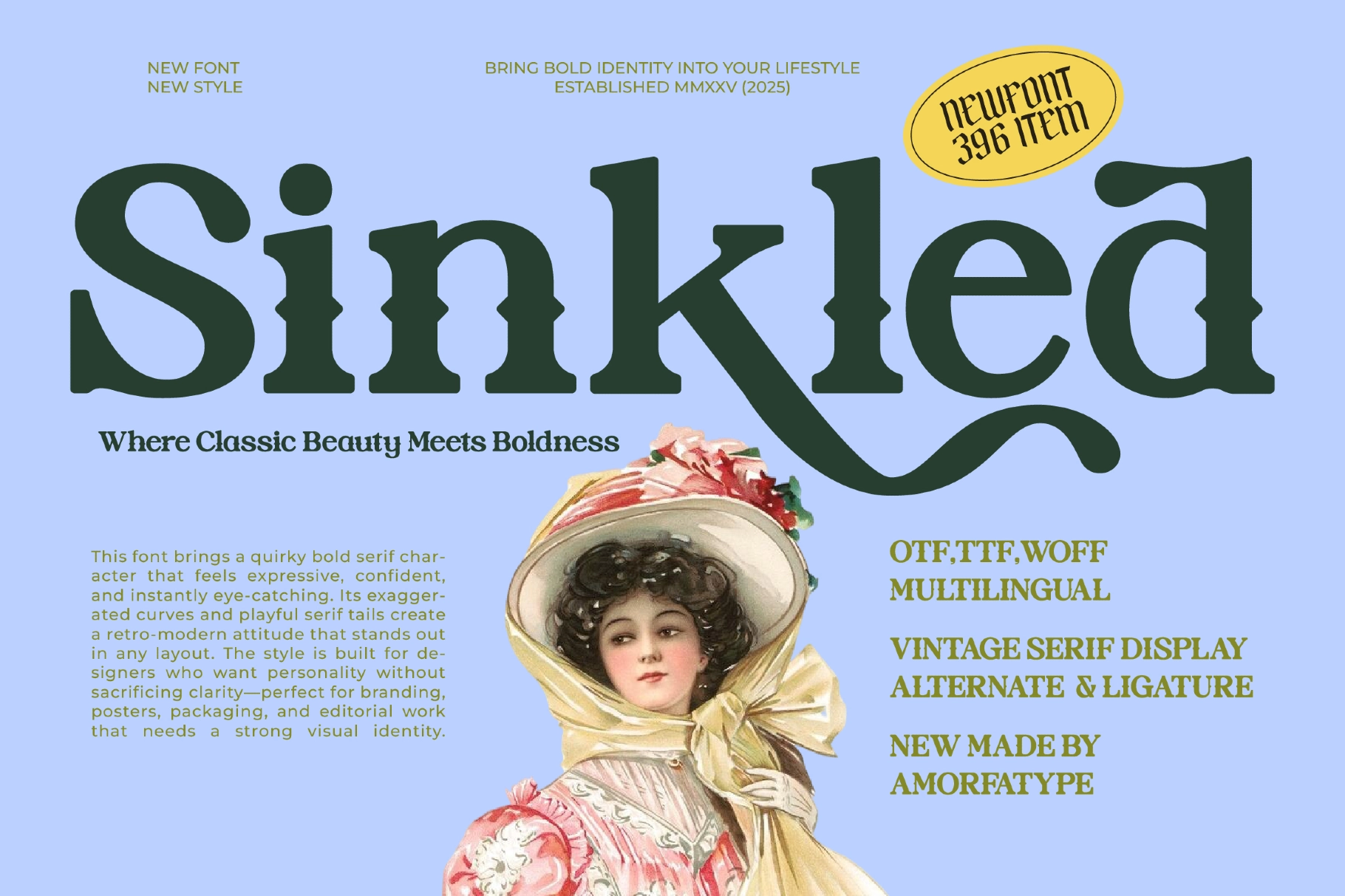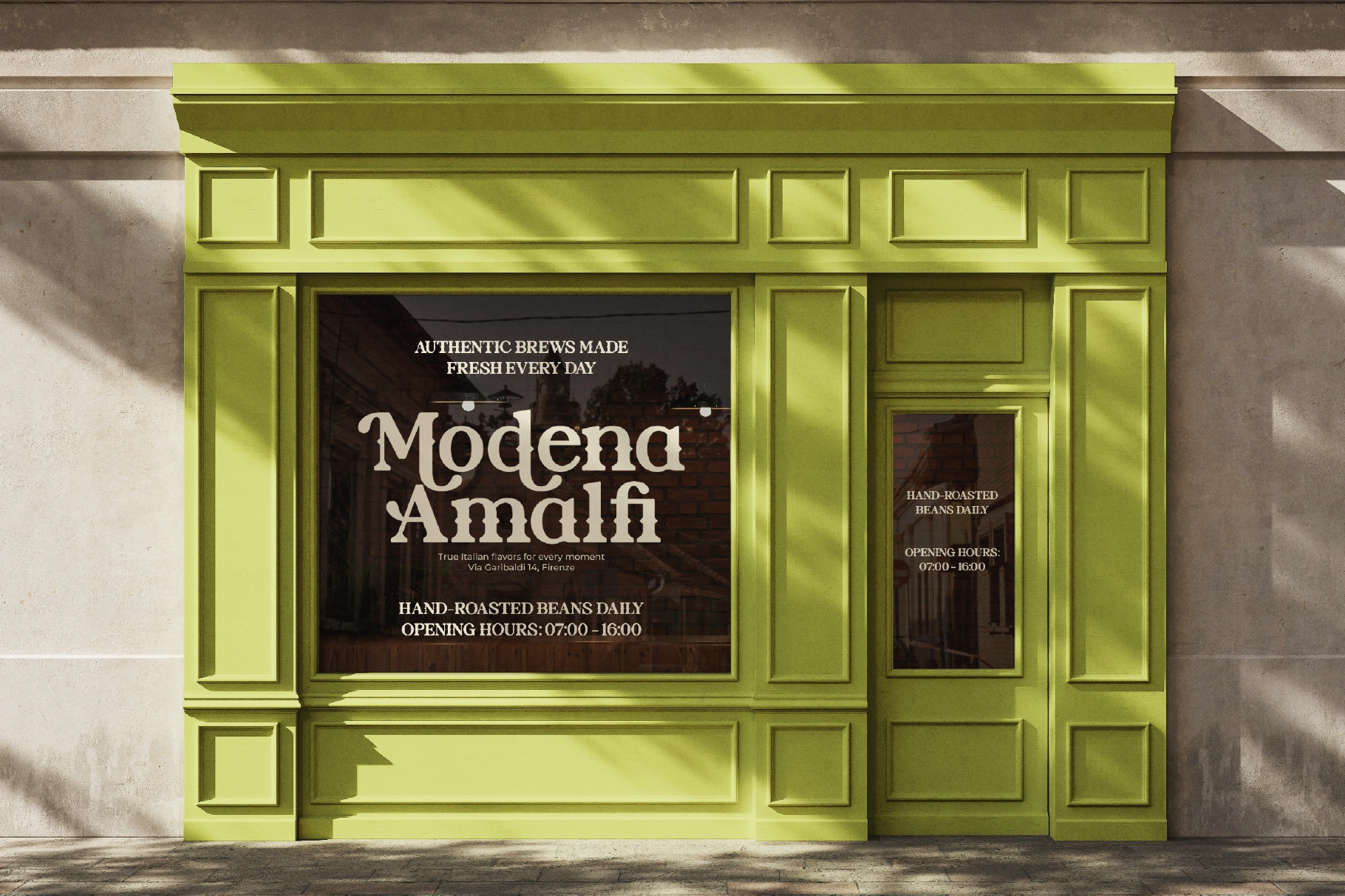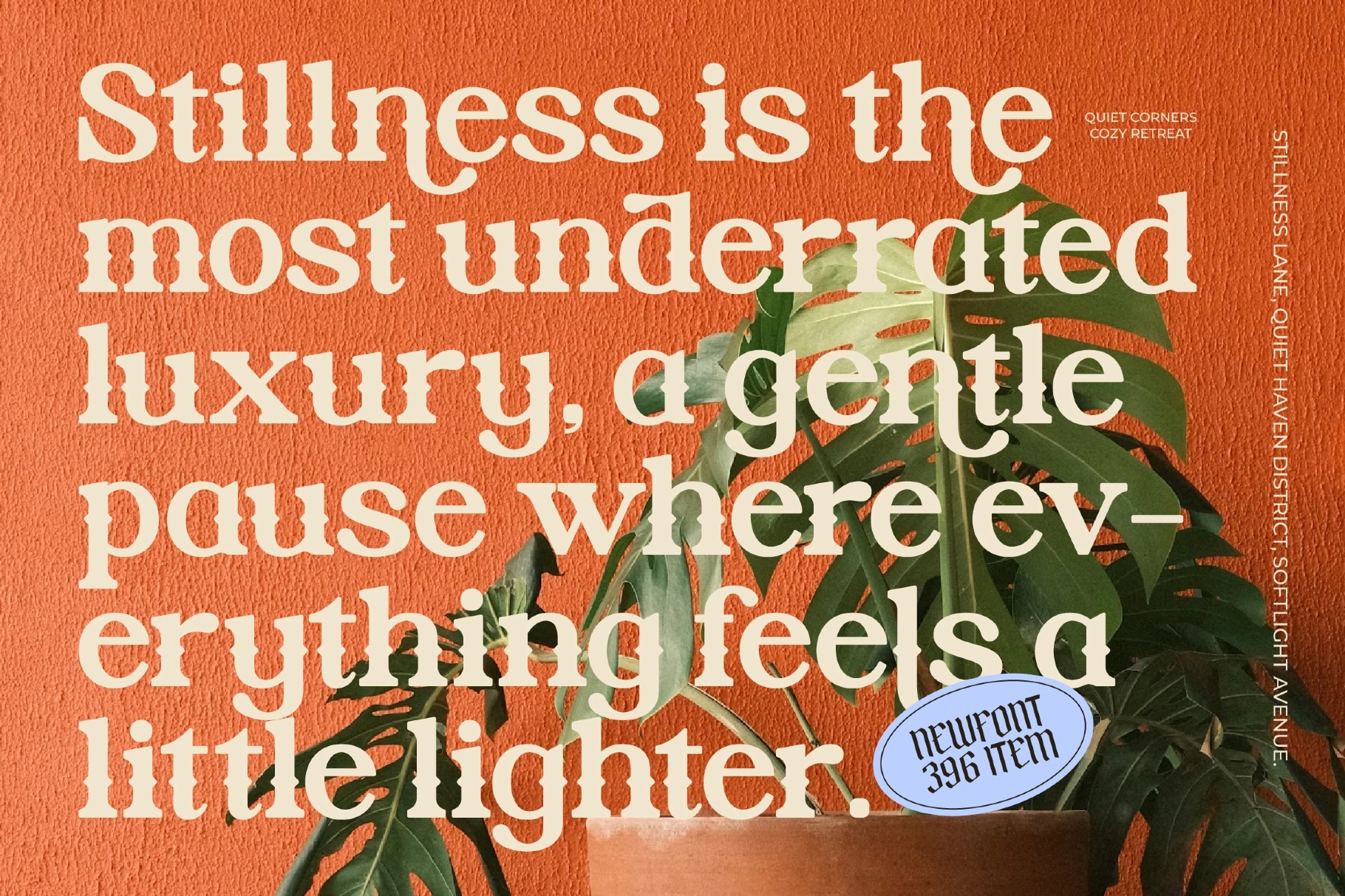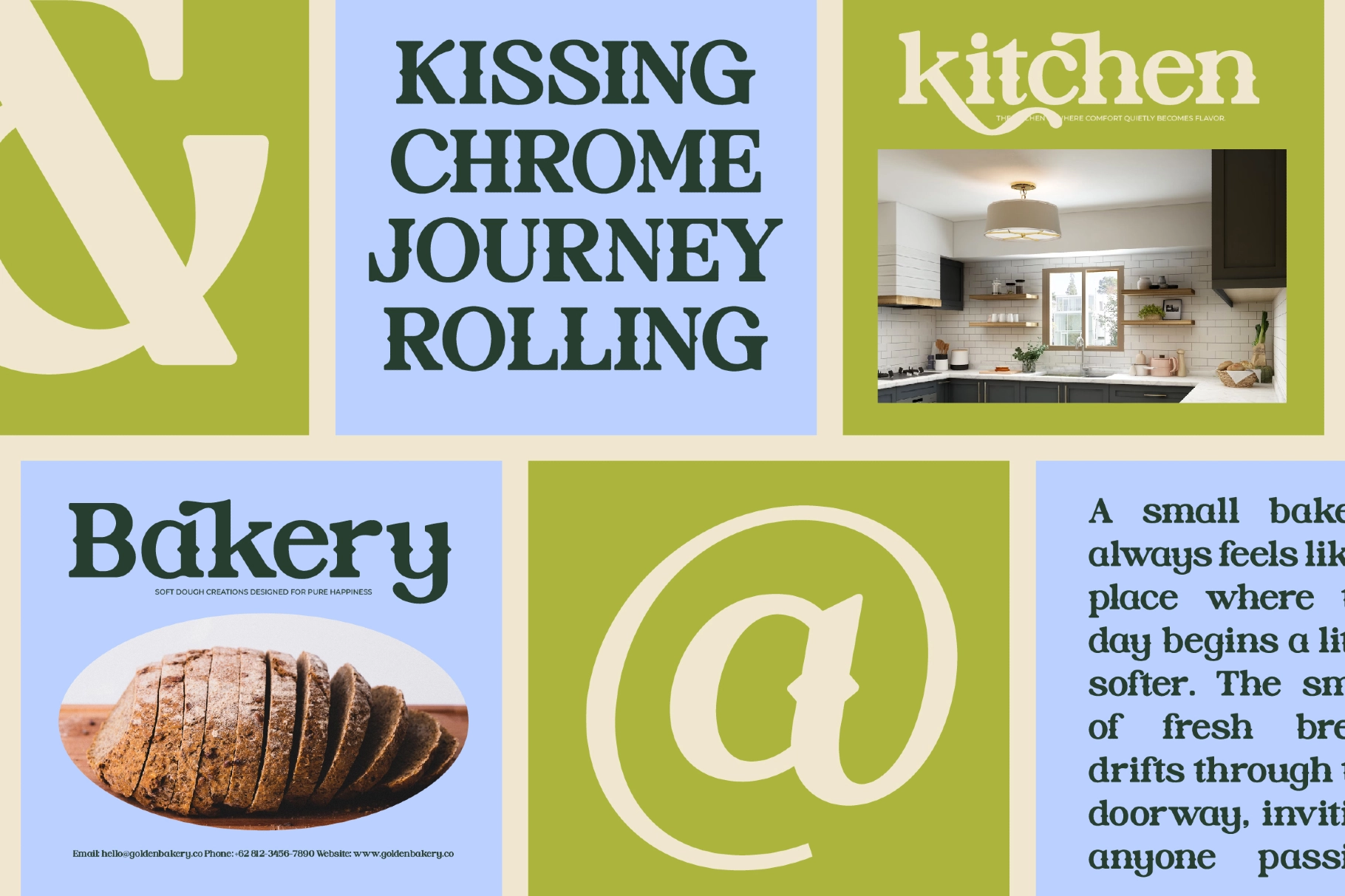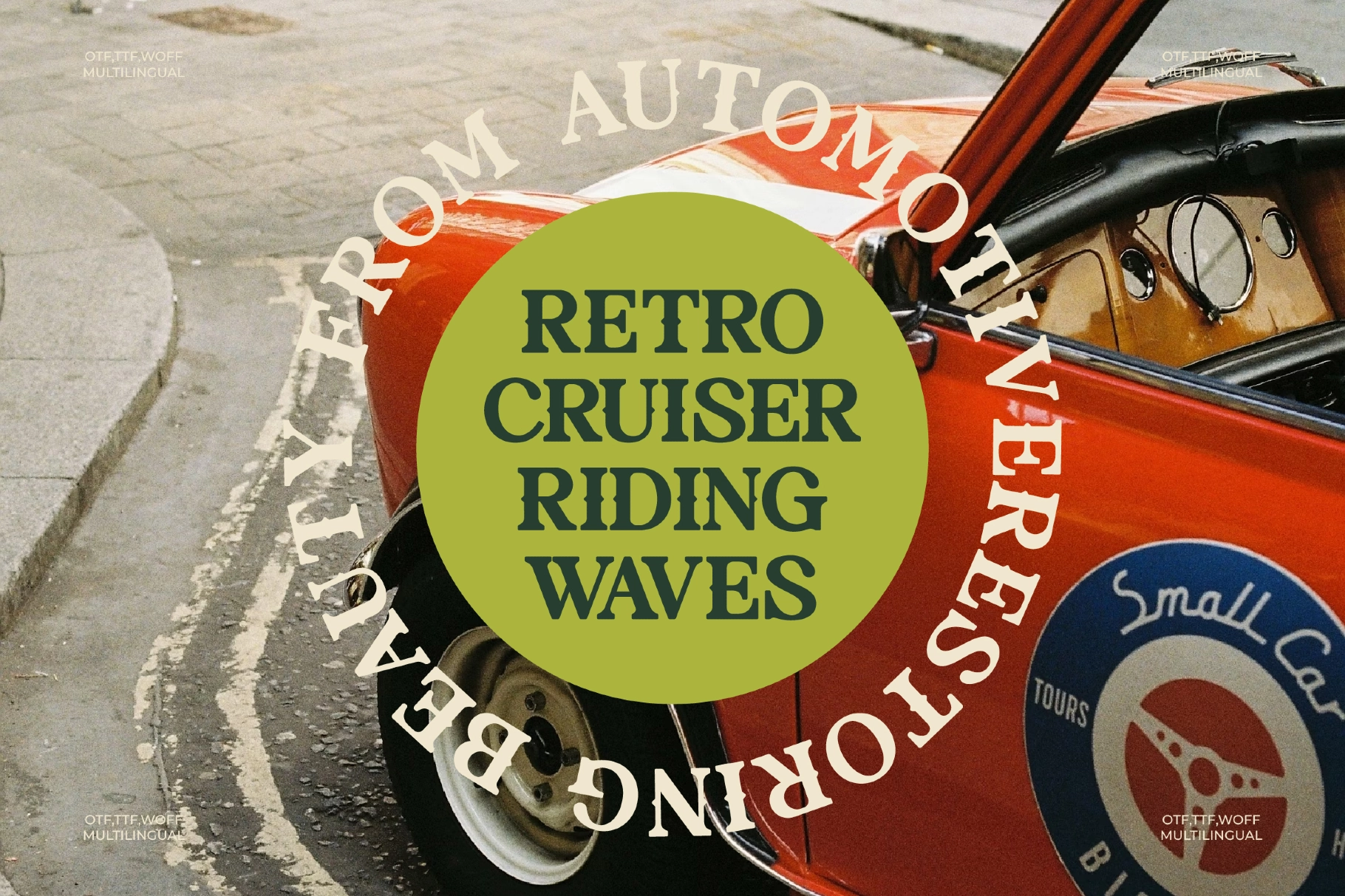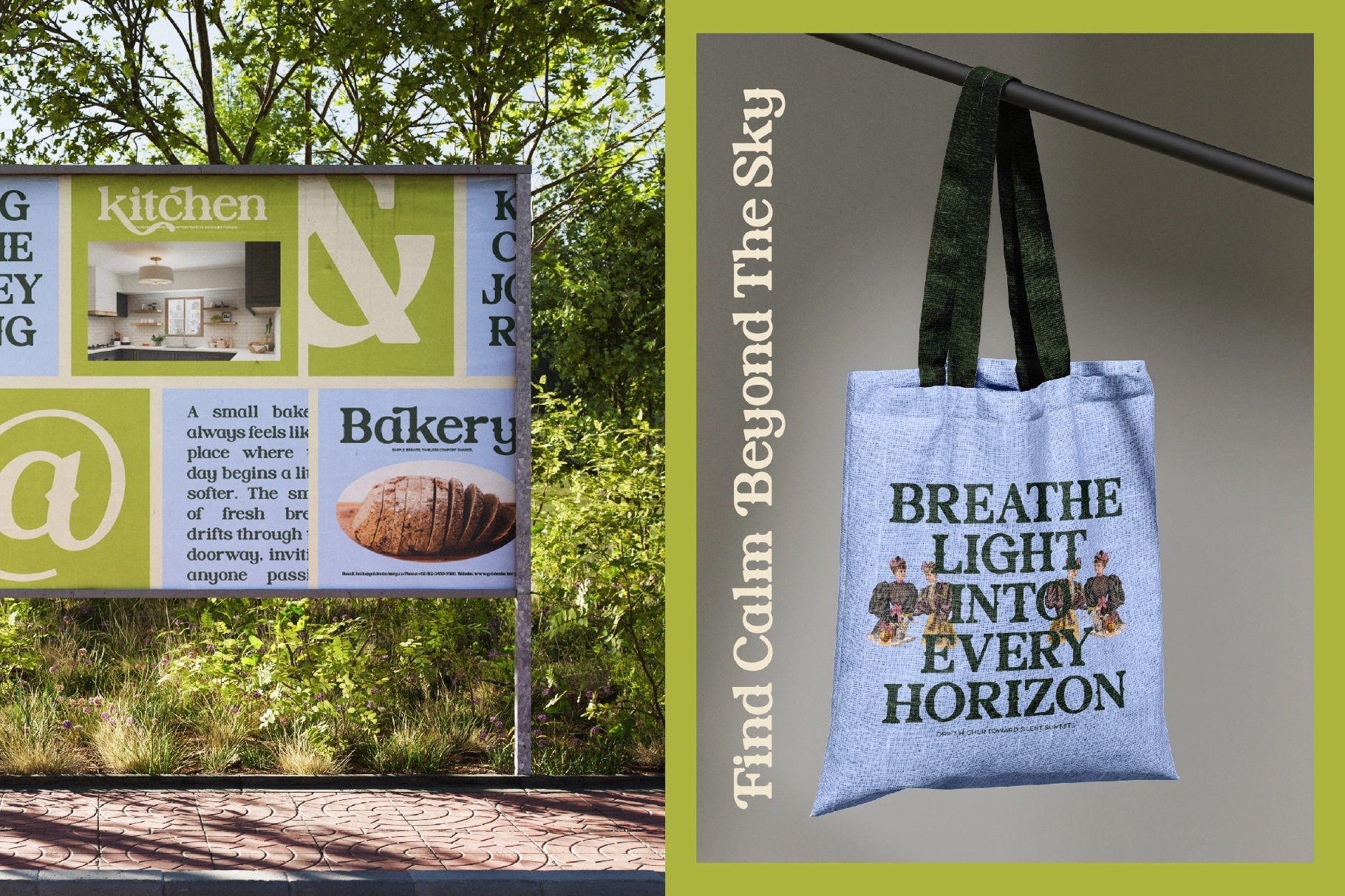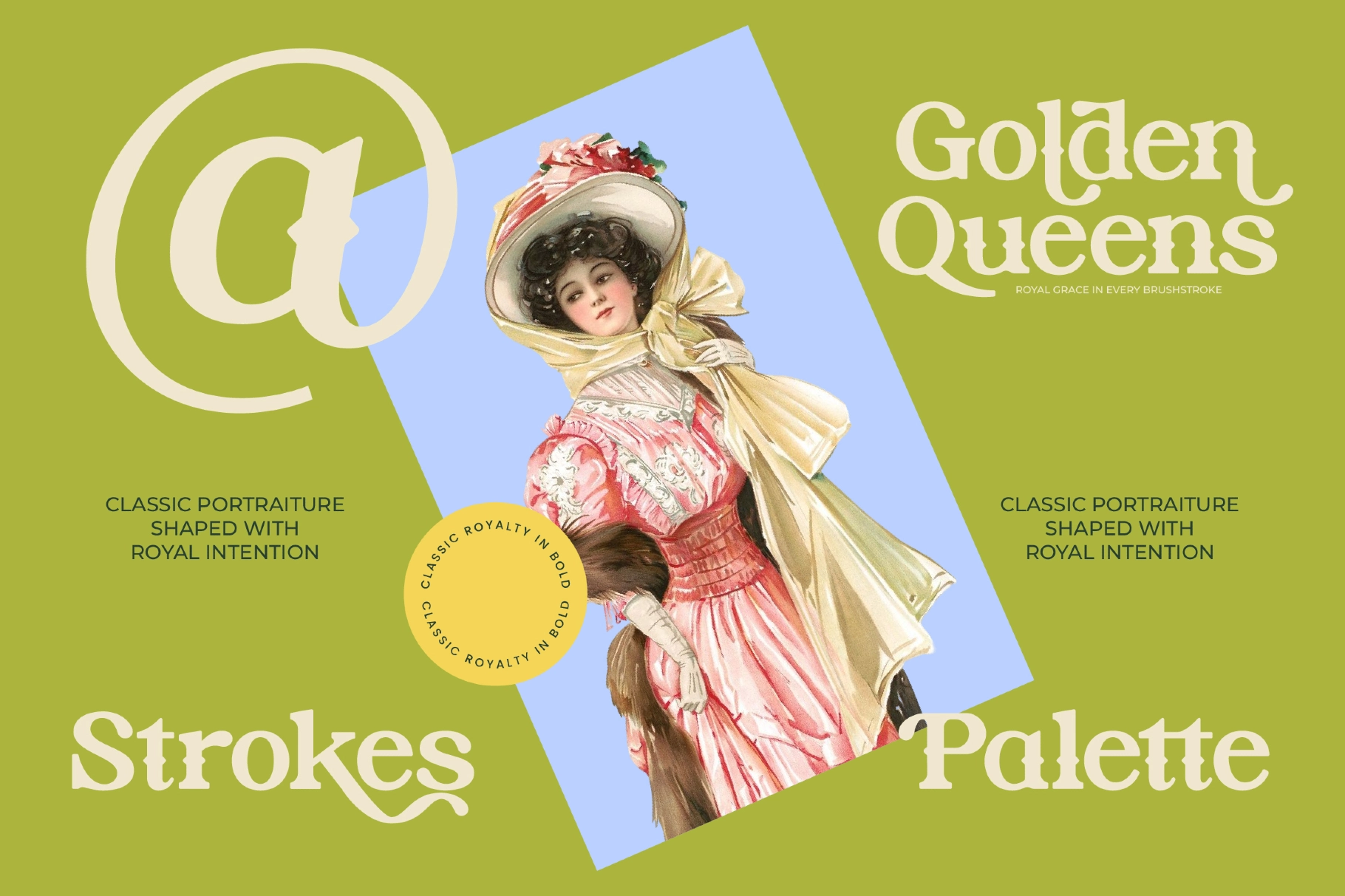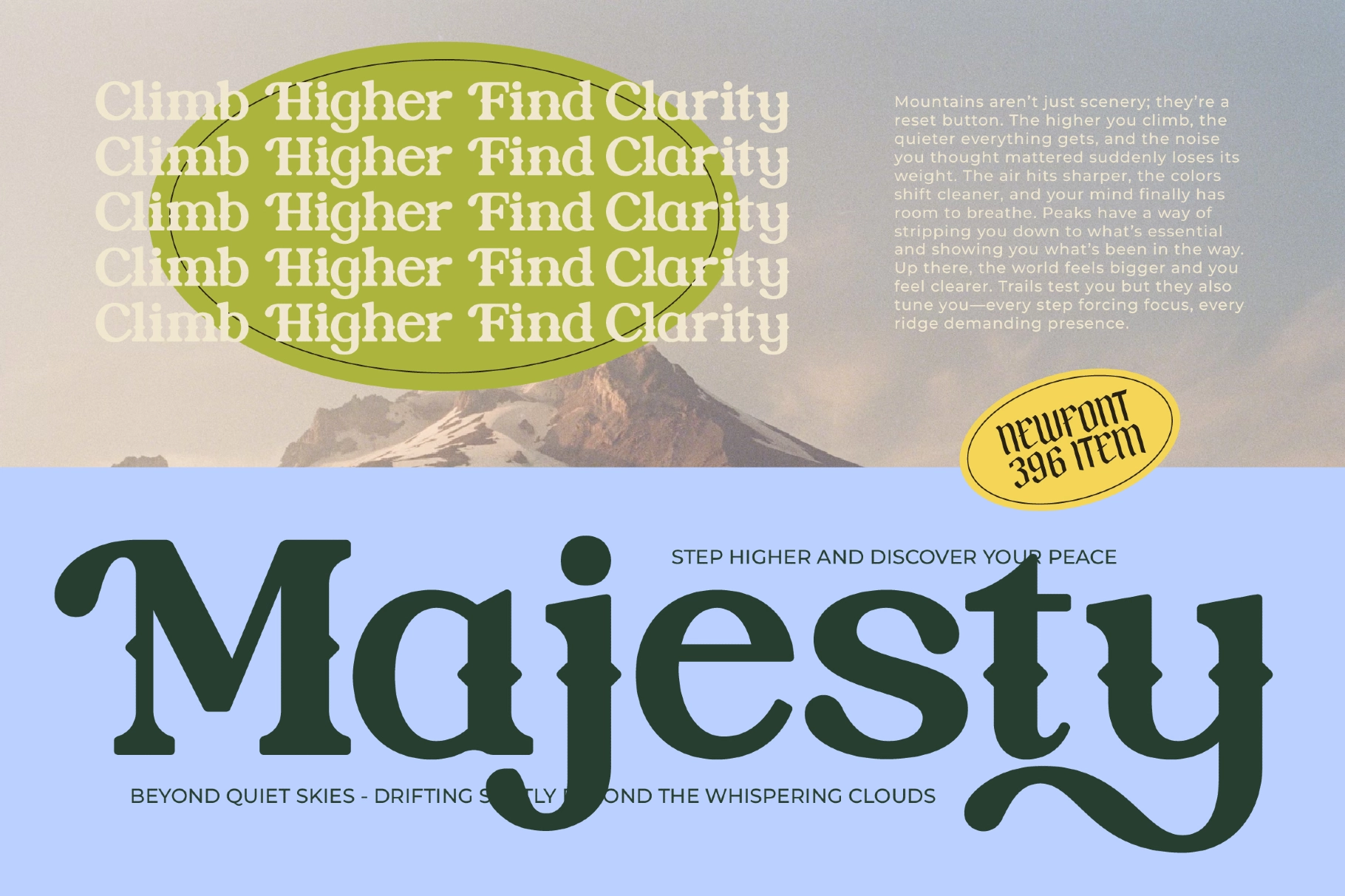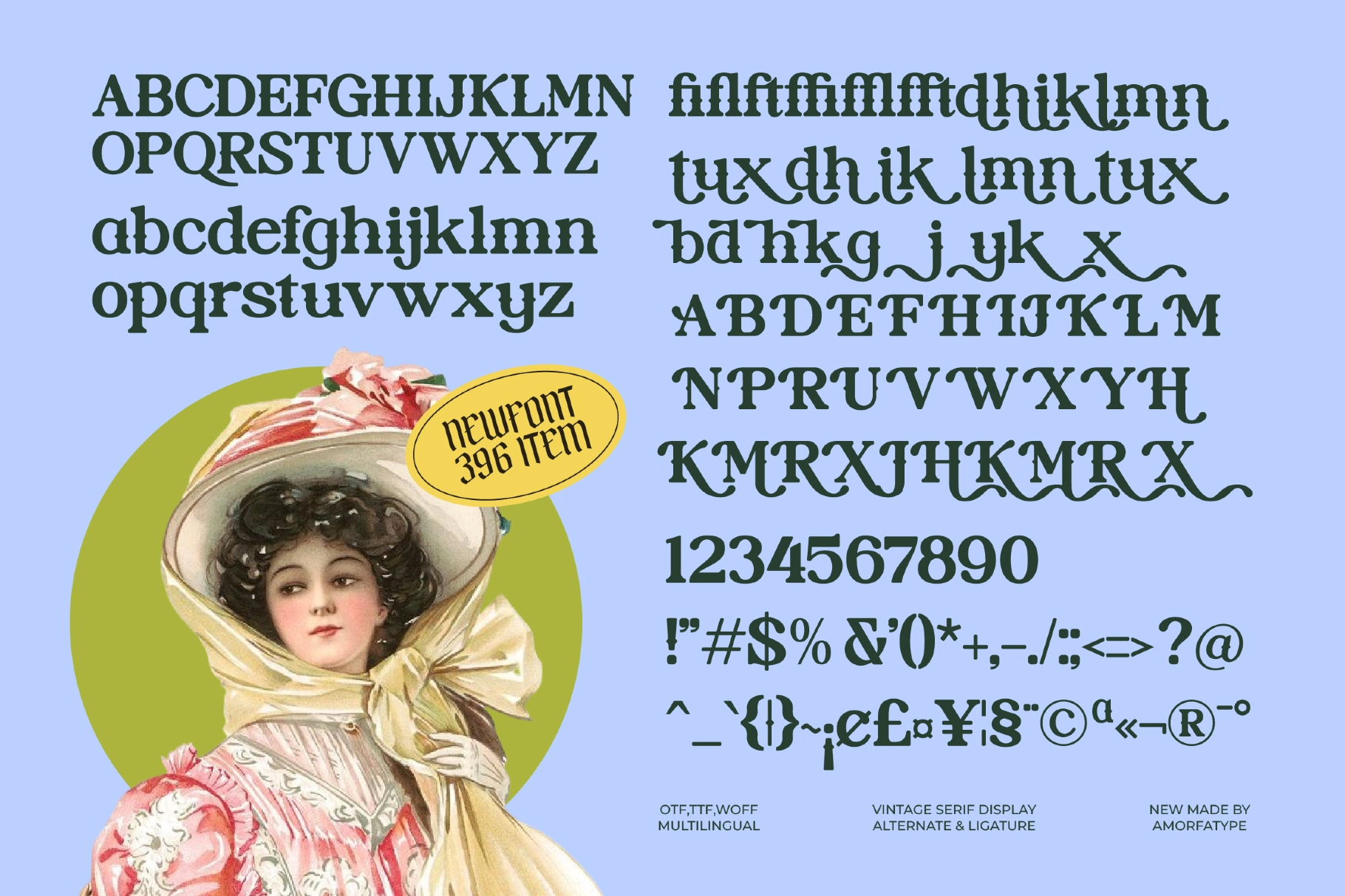
Sinkled - Vintage Serif Display Font
The typeface is vintage at full volume: chunky curves, curled terminals, sharp cuts, and a polished old-print character with plenty of theatrical confidence. Its letterforms carry a nostalgic poster-shop energy, but the spacing and clean outlines keep headlines readable instead of costume-party loud.
Sinkled works well for bakery branding, boutique logos, book covers, café packaging, editorial headlines, poster design, tote bags, music artwork, social media graphics, quote layouts, signage, labels, and more. The alternates and ligatures add useful character for custom wordmarks, especially in short phrases that need rhythm, charm, and a little wink from another century.